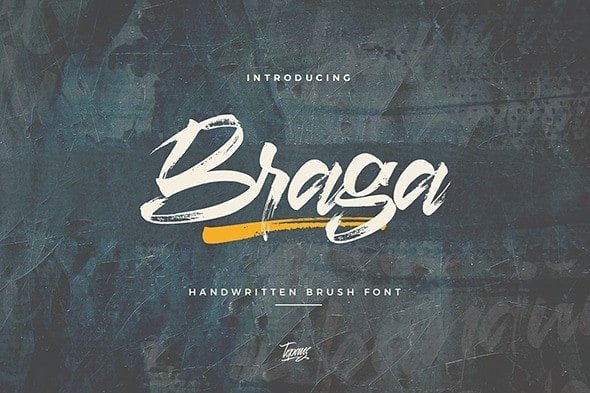
Braga Brush Script Font
Braga is a rough brush script font with a clear style and dramatic movement this font is great for your next creative project such as logos, printed quotes, invitations, cards, product packaging, headers, Logotype, Letterhead, Poster, Apparel Design, Label, and etc.
Braga comes with uppercase, lowercase, numerals, punctuations, and common ligatures to let you customize your designs. This font is free for PERSONAL USE. Link to purchase full version and commercial license : HERE